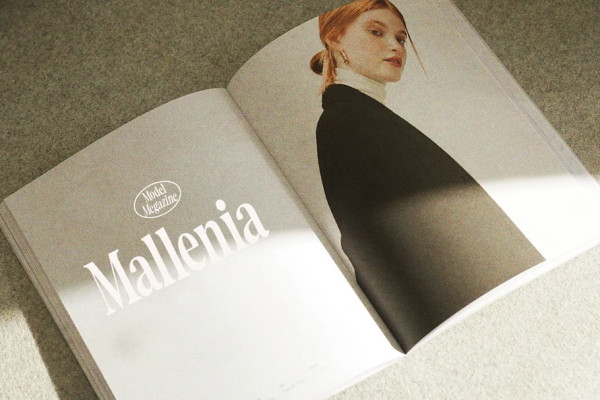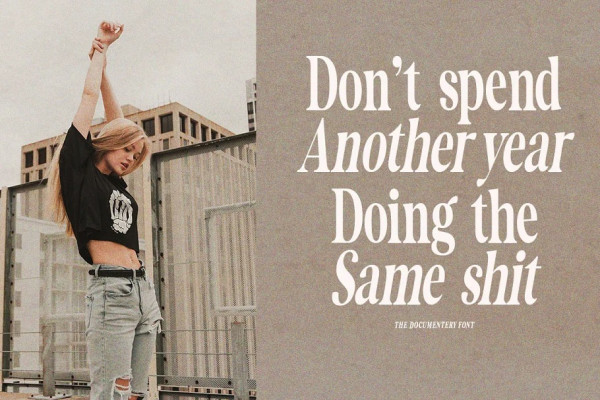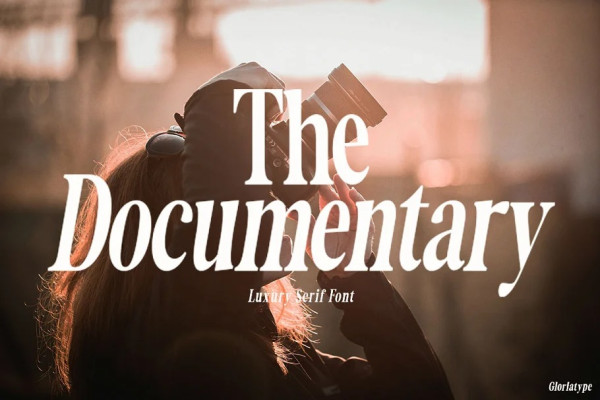
The Documentary Font
The Documentary Font is a display font that strikes the perfect balance between classic and modern, combining serif and sans serif styles in a unique way. Its timeless appeal makes The Documentary a great choice for stylish and impactful designs. The font family includes 4 different weights, uppercase, lowercase, punctuation, and multilingual support.